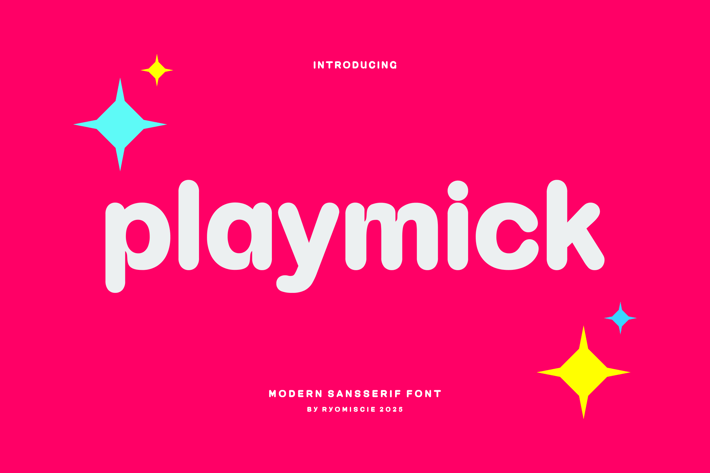
Playmick - Modern Sans Serif Font
Introducing our new product Playmick Font - Modern Font
Playmick Font - Modern Font is a bold and authentic display font. The font is suitable for any branding project like logo,
t-shirt printing, esport, and many more. outstanding in a wide range of contexts.
Playmick Uppercase
Playmick Lowercase